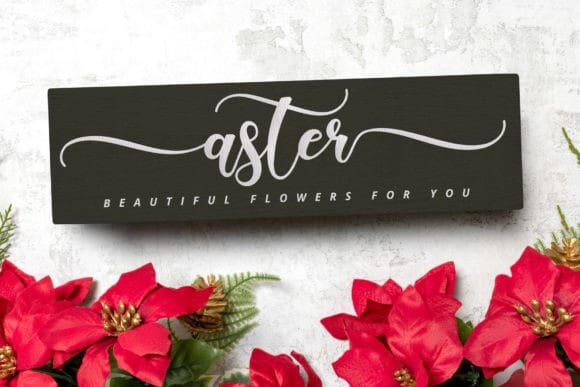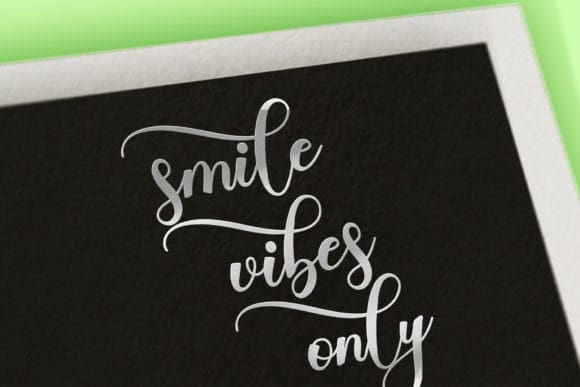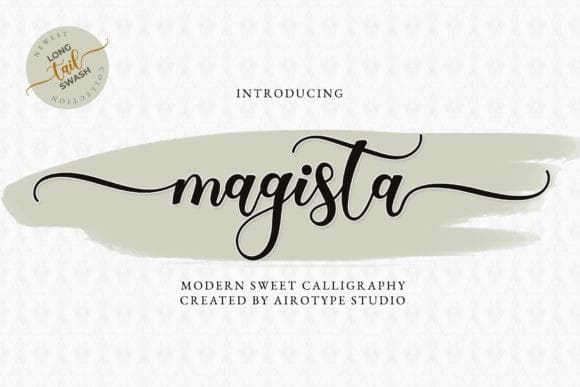
Magista Calligraphy Font
Magista Calligraphy Font, is an elegant and dainty handwritten font that features sweet and delicate swashes. This original look will appeal to a wide range of crafty ideas, from letterheads and titles, to stationery. Magista is PUA encoded which means you can access all of the glyphs and swashes with ease!